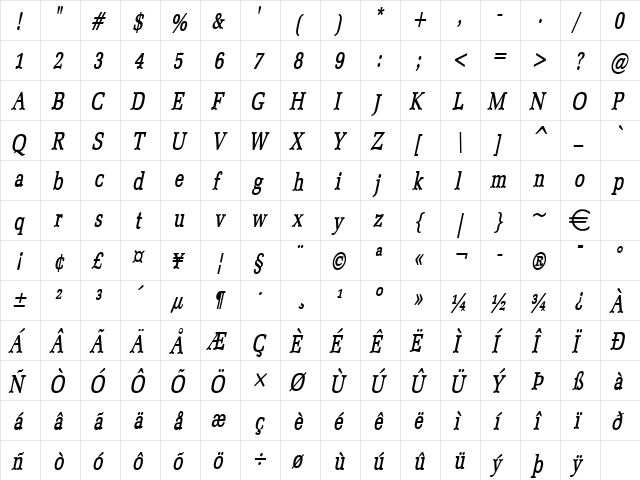
BidRomanThin BoldItalic Font Preview
BidRomanThin BoldItalic
Design Context for BidRomanThin Typeface
BidRomanThin takes a measured approach to typography — its balanced proportions and neutral character make it a reliable workhorse for both digital and print work. The dynamic lean of this cut emphasises speed and emphasis in any layout. Its bold stroke weight gives it real presence on the page.